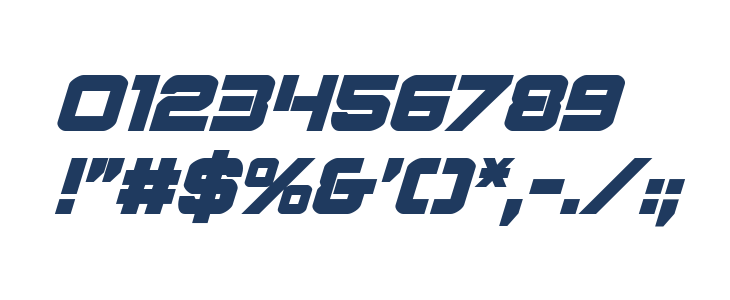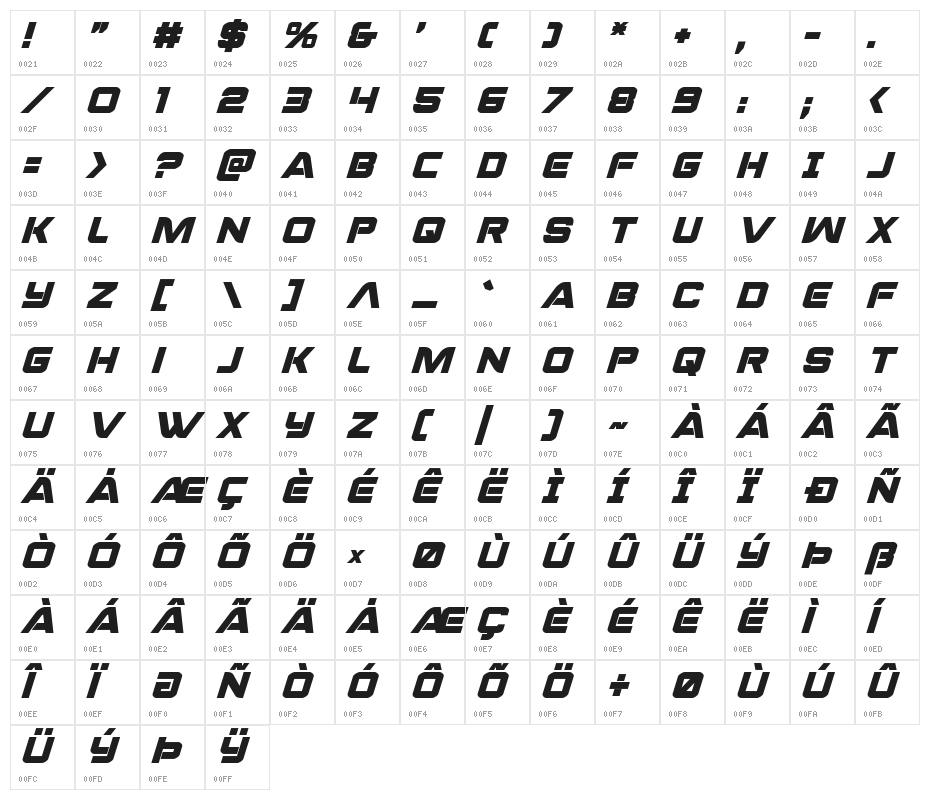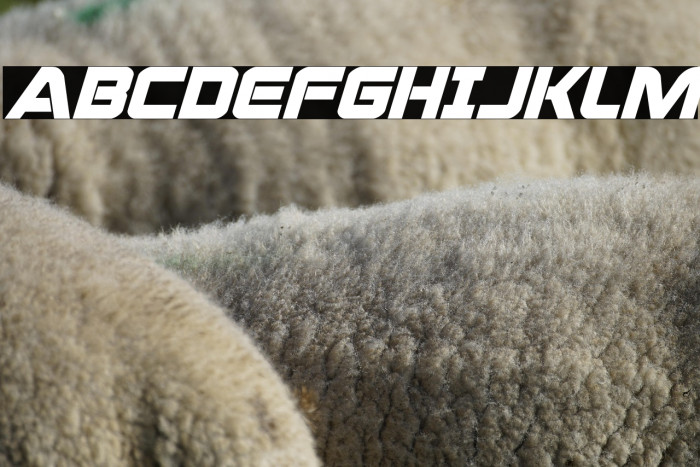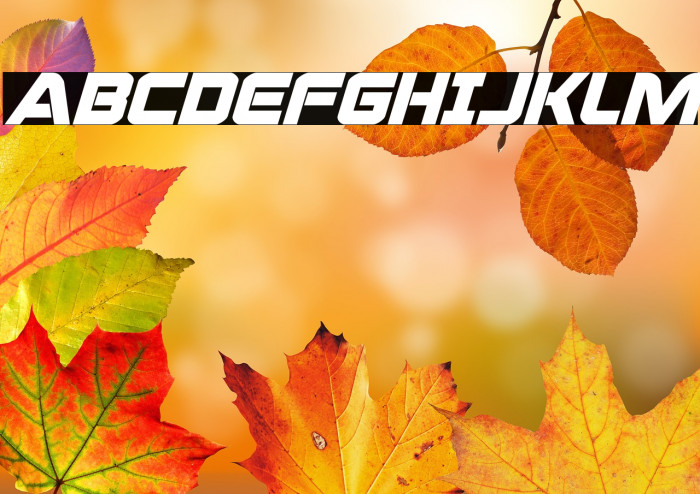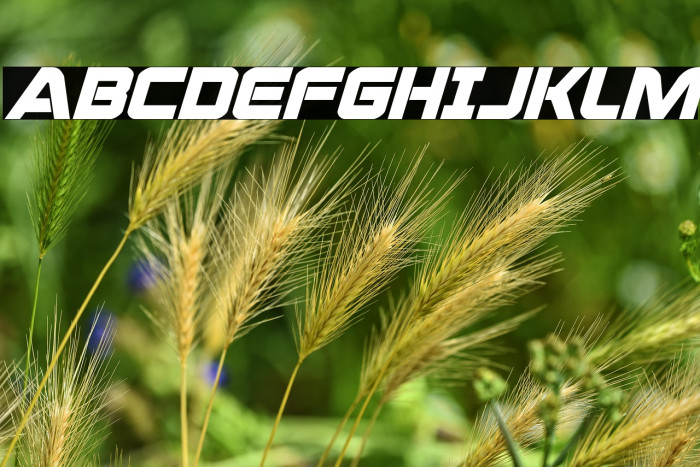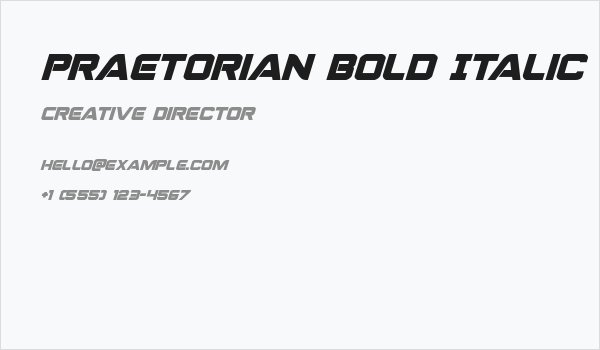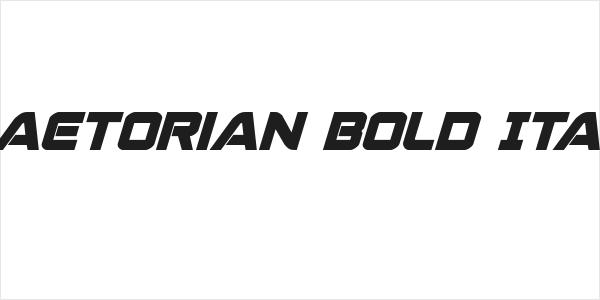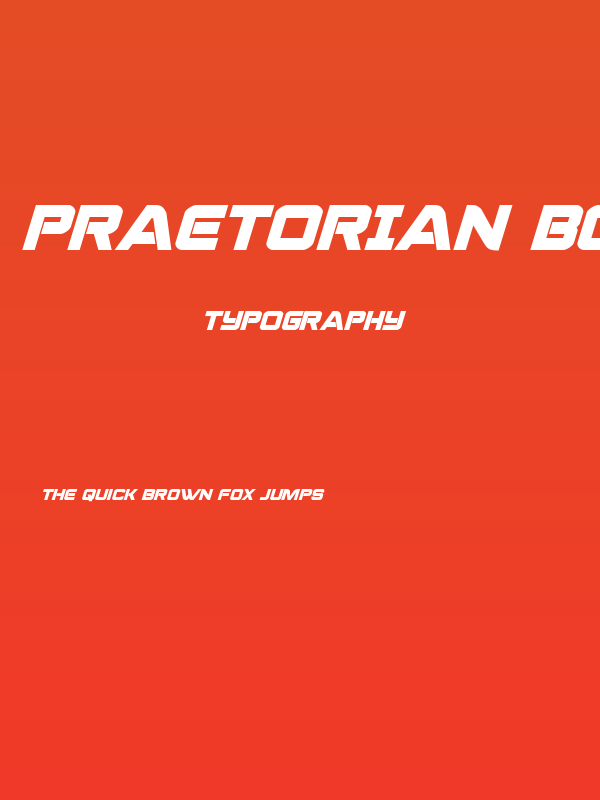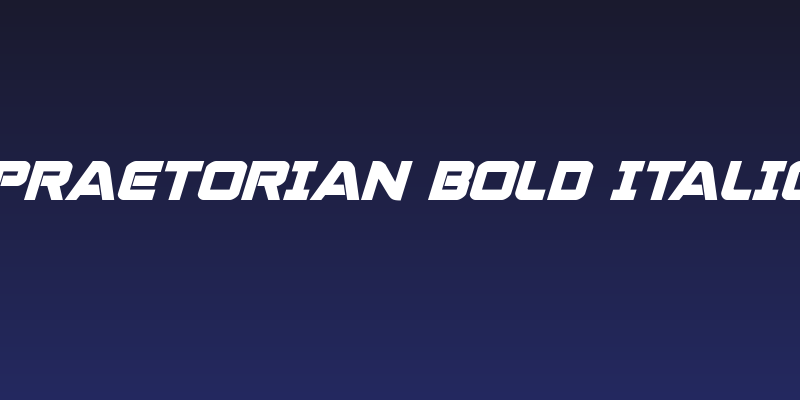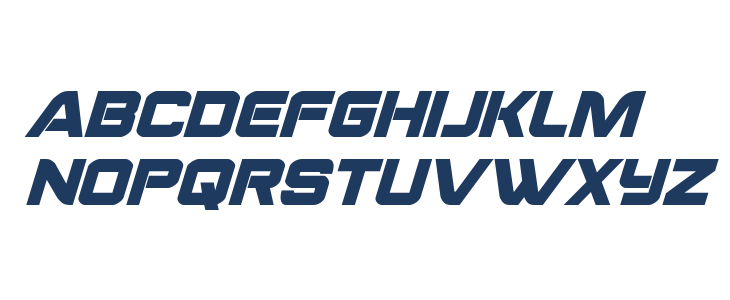
Praetorian Bold Italic Font
Praetorian Bold Italic Description
This font exhibits a bold and italicized style with a strong, dynamic presence. The characters are slanted, giving a sense of motion and energy. The strokes are thick and consistent, providing a robust and impactful appearance. The uppercase and lowercase letters maintain a uniform width, enhancing readability while retaining a modern and sleek look. The numerals and special characters are designed to match the overall bold aesthetic, ensuring coherence across all elements. This font is well-suited for projects that require a powerful and assertive visual impact.
Proposed ProjectsIdeal for sports branding, action movie posters, dynamic logos, and bold headlines.